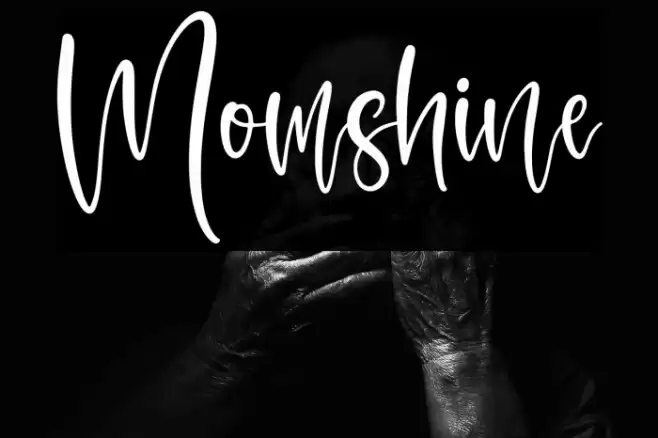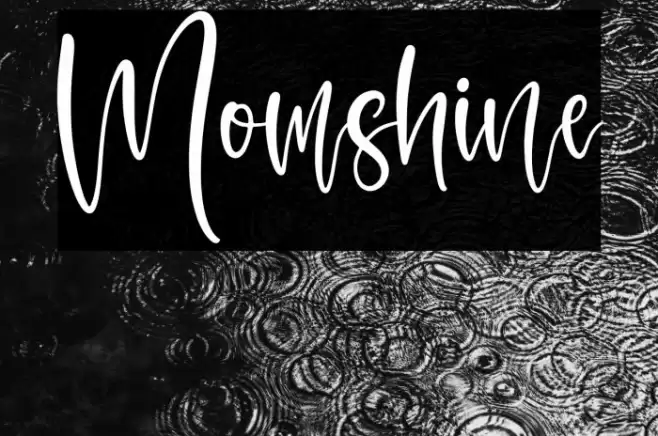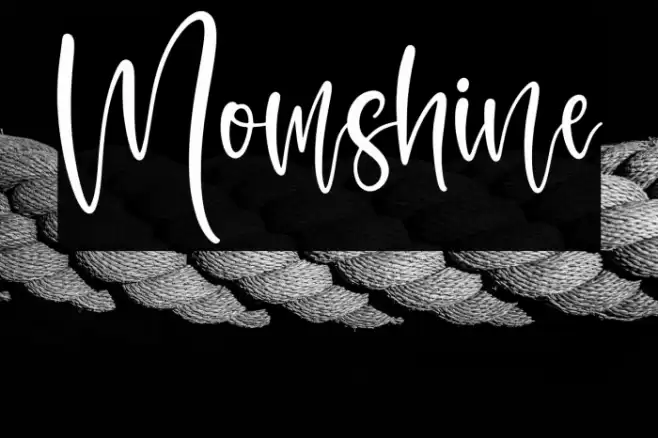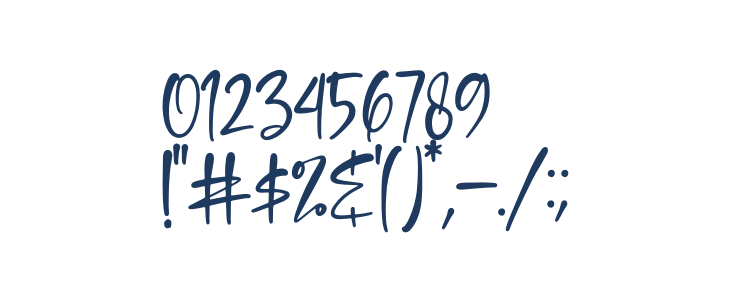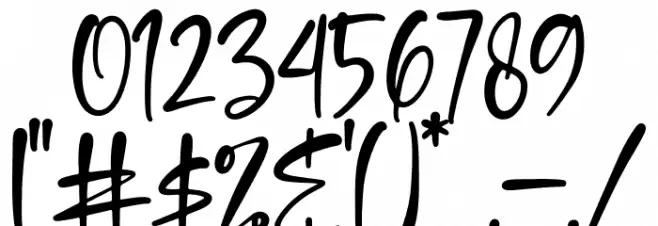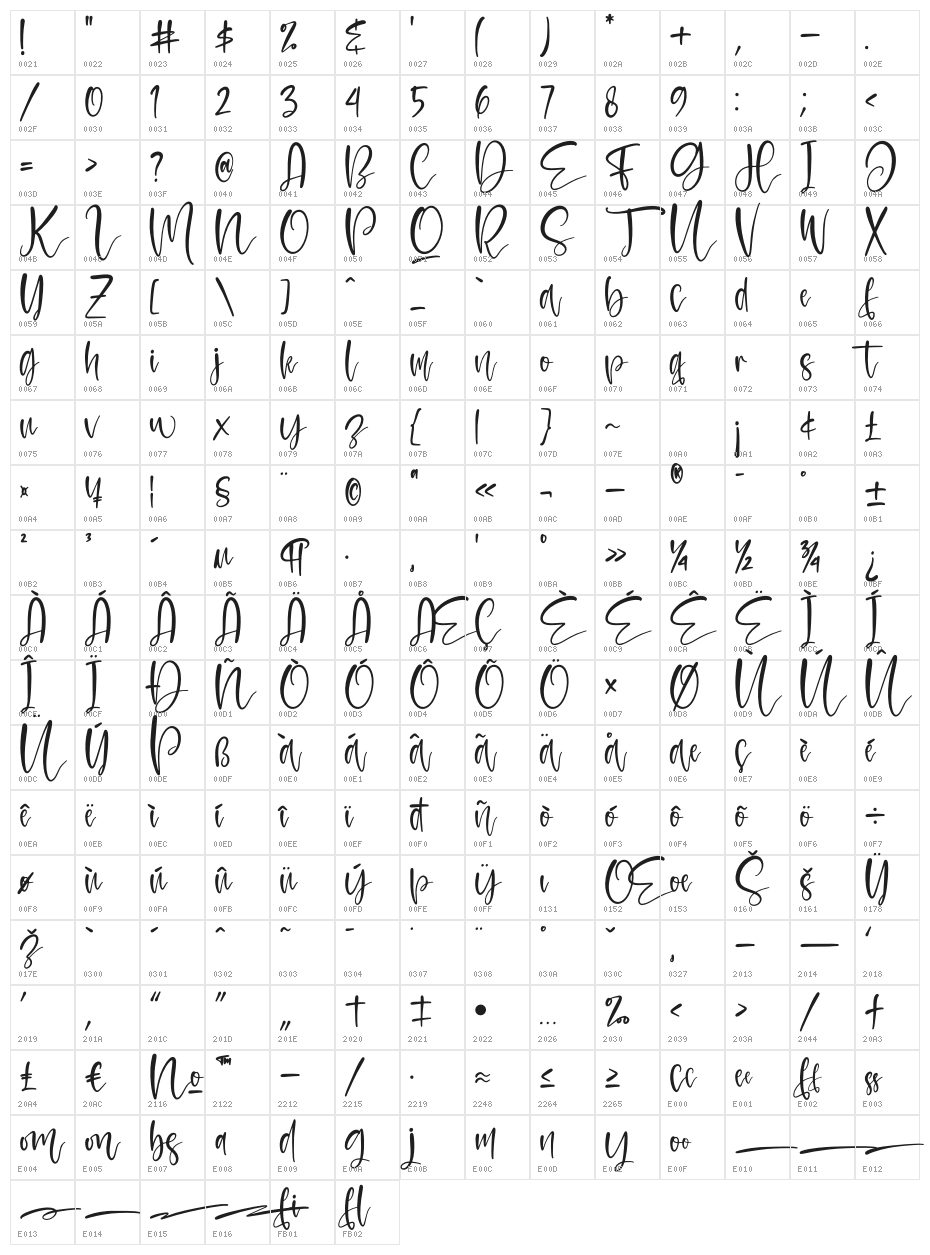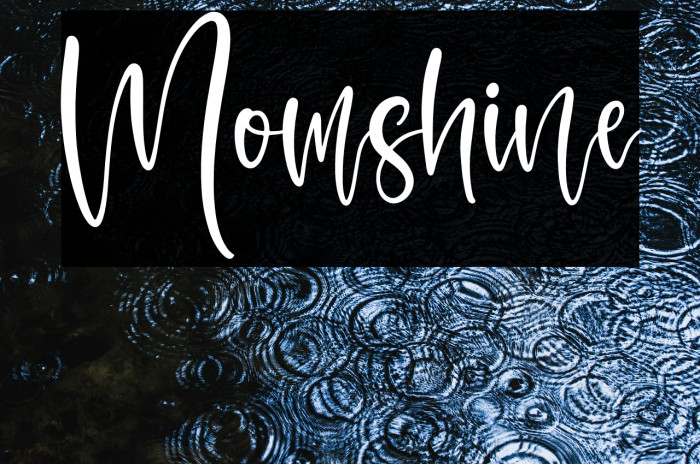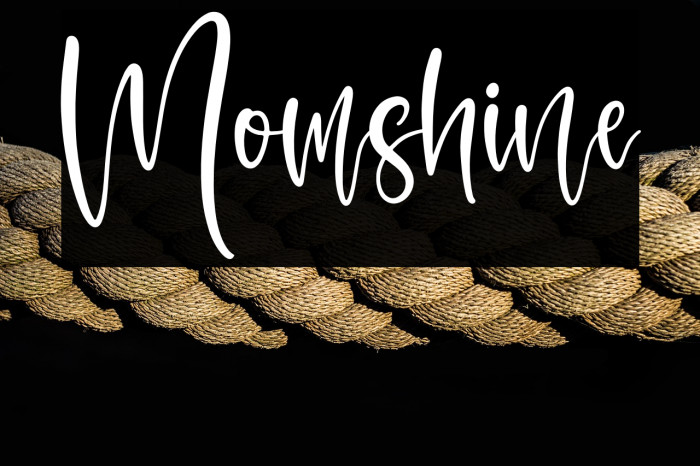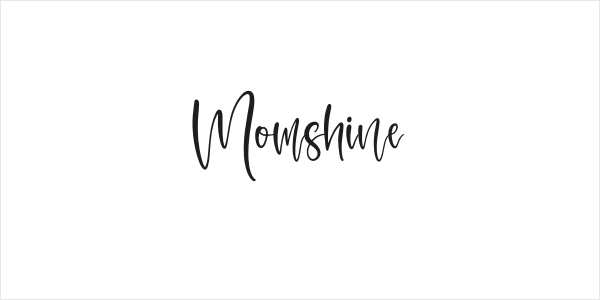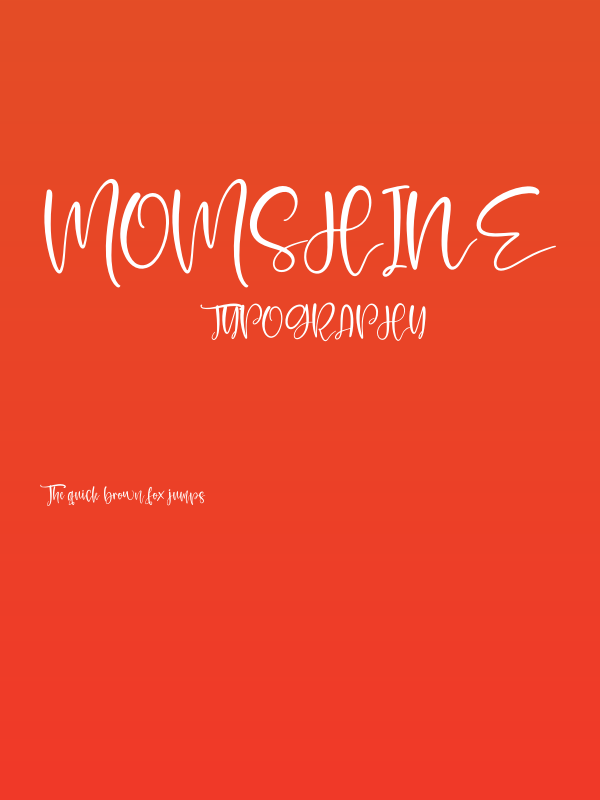
Momshine Font
Momshine Description
This font features a lively and dynamic script style, characterized by its fluid and connected letterforms. The uppercase letters are bold and expressive, with a playful flair that adds personality to any text. The lowercase letters maintain a consistent flow, enhancing readability while retaining an artistic touch. Numbers and special characters are crafted with the same attention to detail, ensuring a cohesive look across all elements. The overall design is modern and stylish, making it suitable for a variety of creative projects.
A lively and dynamic script font with fluid, connected letterforms from Uncategorized fonts.
- Proposed Projects: Ideal for branding, invitations, greeting cards, and social media graphics.
- Use Case: Logos, Headlines, Invitations